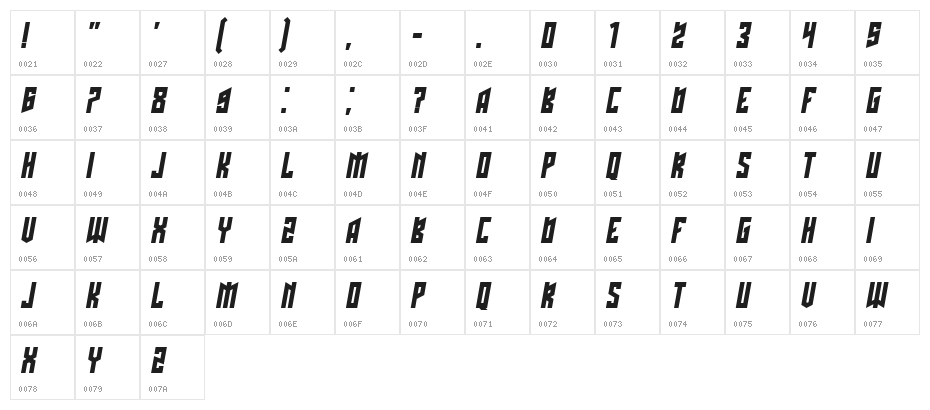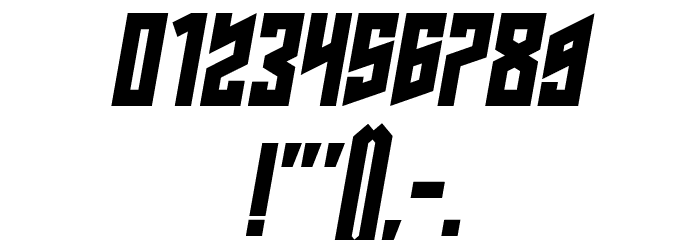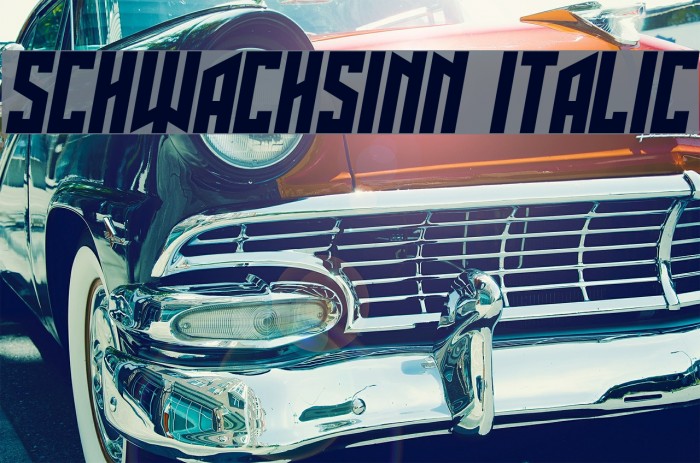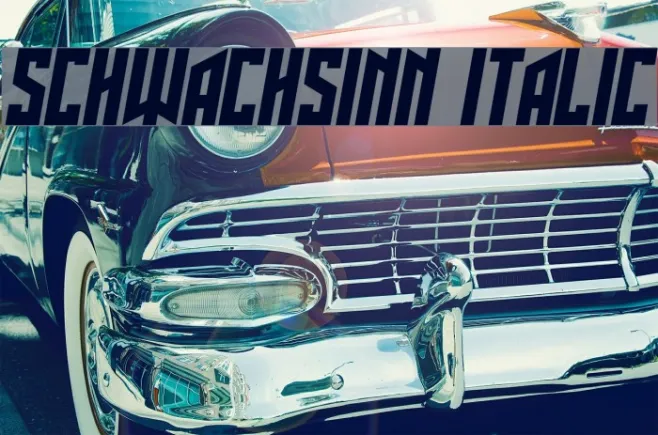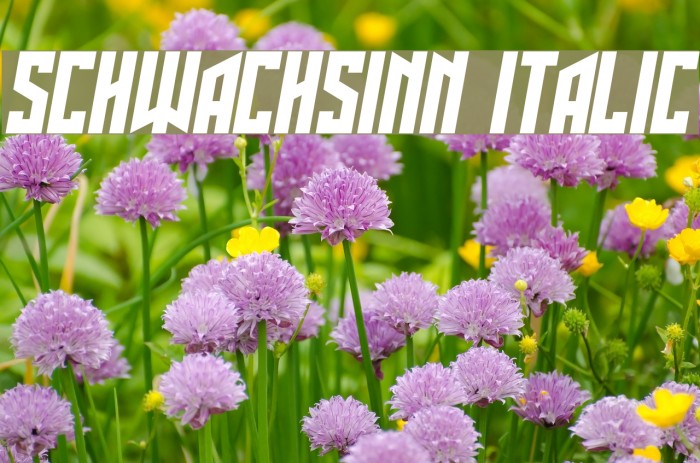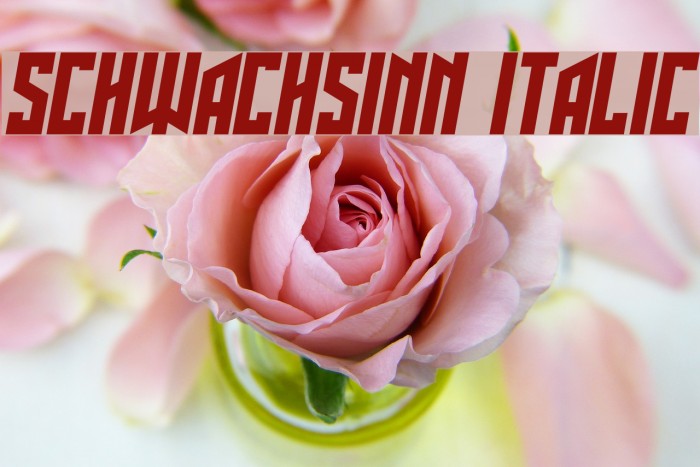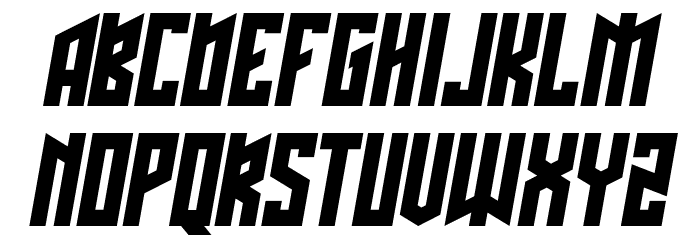
Schwachsinn Italic Font
Schwachsinn Italic Description
This font features a bold, angular design with a strong italic slant, giving it a dynamic and energetic appearance. The characters are sharply defined with a geometric style, emphasizing diagonal lines and pointed edges. The uppercase and lowercase letters maintain a consistent style, with the uppercase being particularly striking due to its exaggerated angles. The numbers and special characters follow the same bold and angular theme, ensuring a cohesive look across all glyphs. The font's unique style makes it stand out, suitable for projects that require a modern and edgy aesthetic.
| Proposed Projects | Ideal for sports branding, dynamic posters, edgy advertisements, and modern logo design. |